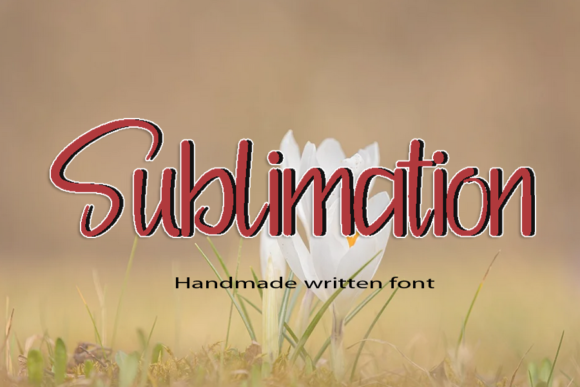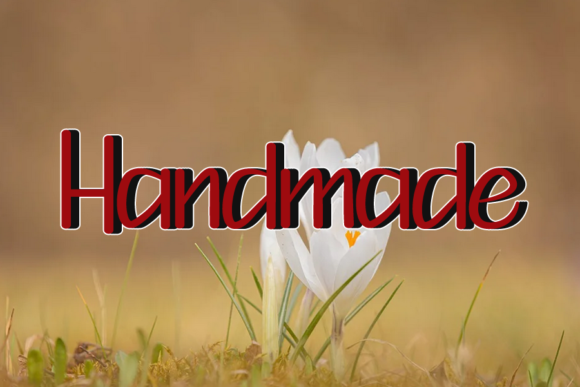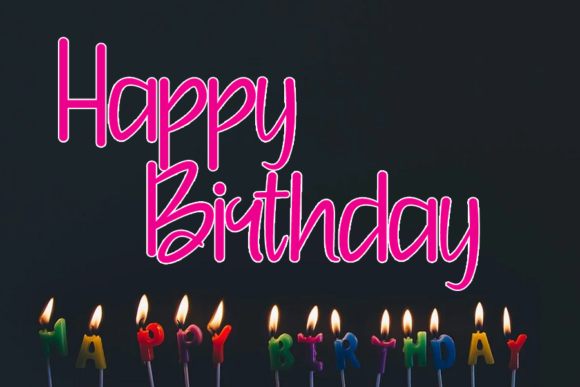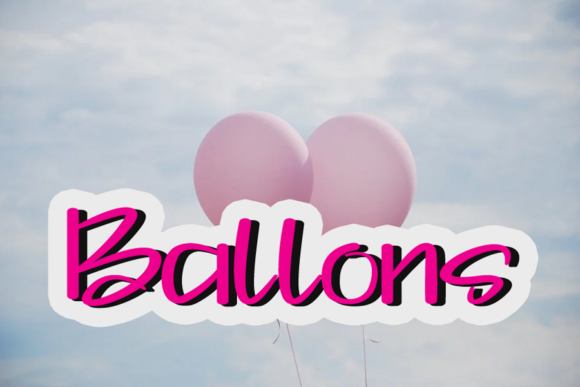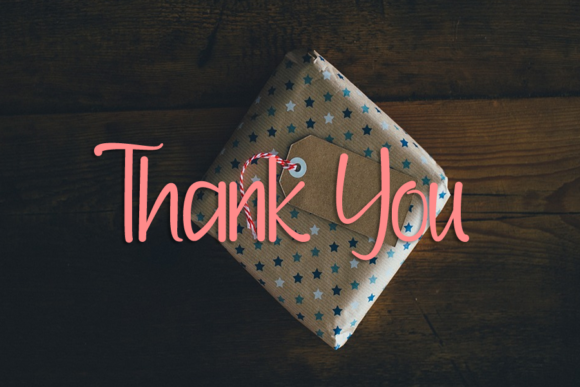
Sublimation Font
About Sublimation Font
Sublimation is an elegant script font with a contemporary atmosphere and impeccable form. Not too thin and not too thick, balanced and varied, this font was designed to enhance the beauty of your projects.